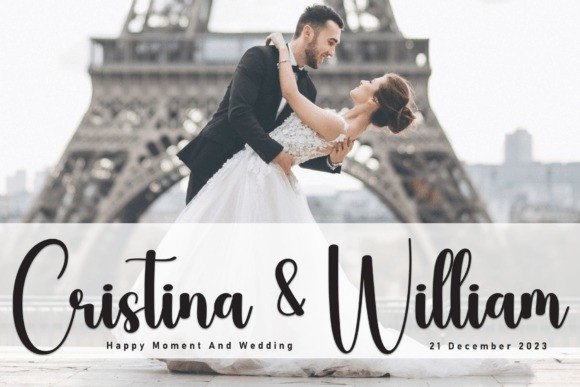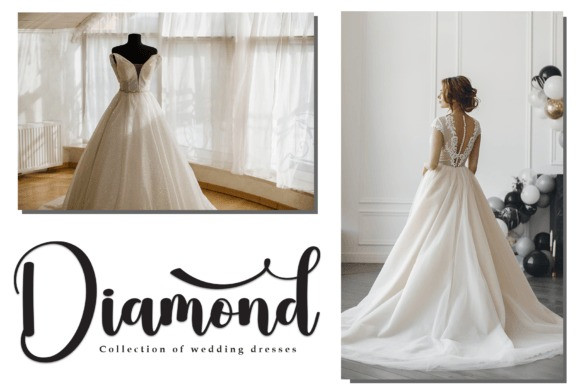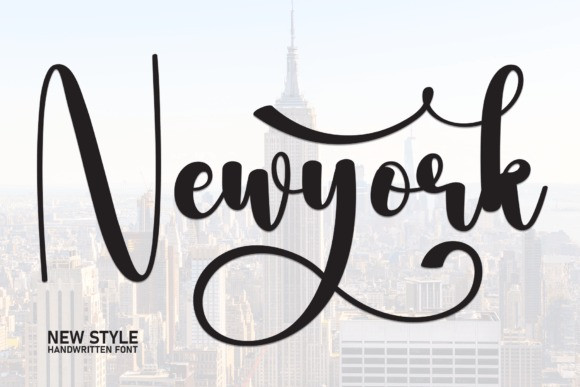
Newyork Script Font
Newyork Script Font is a clean, relaxed and friendly handwritten font. Suitable to a wide variety of designs due to its neat and simple style, this font has the potential to become your favorite go-to font, no matter the occasion!